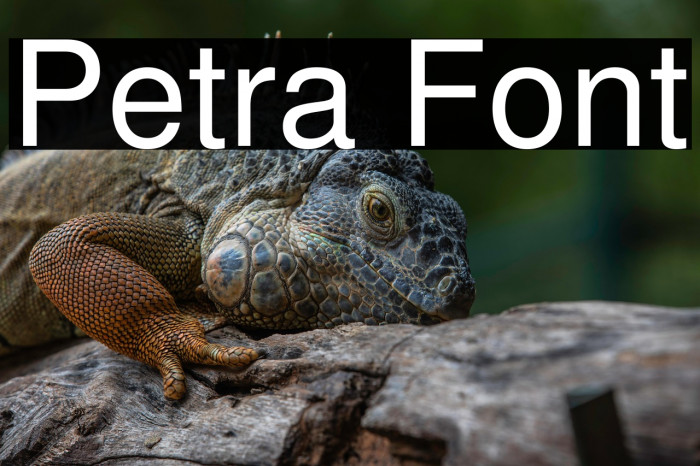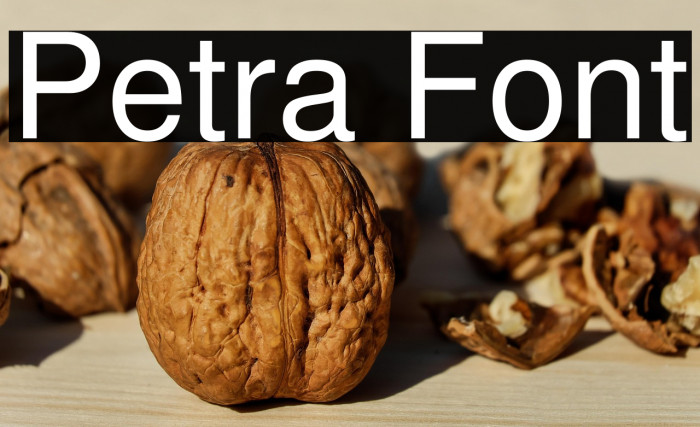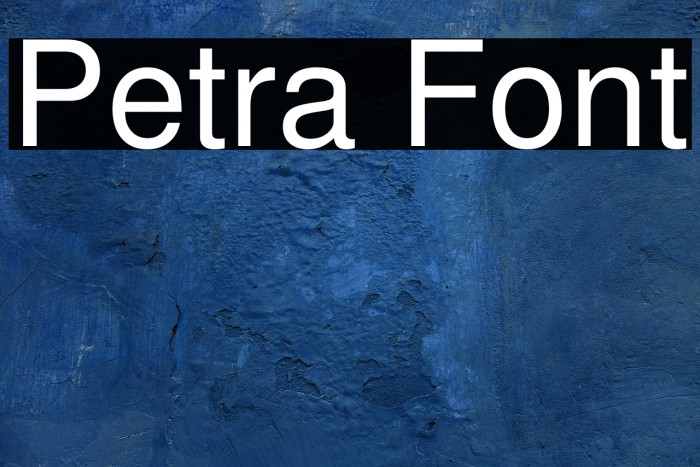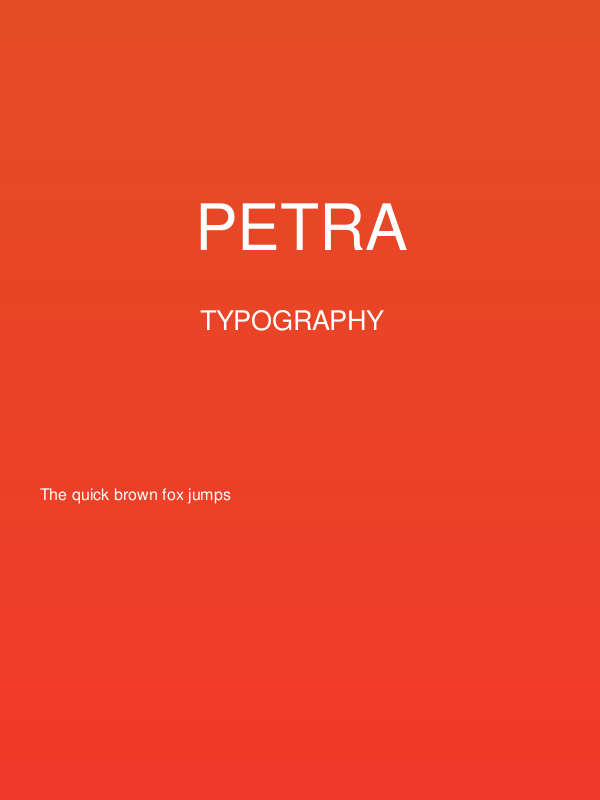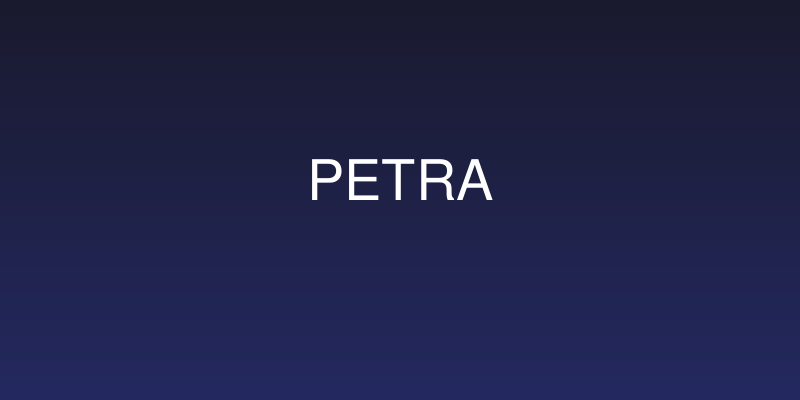
Petra Font
Petra Description
This font exhibits a clean and modern sans-serif style, characterized by its simplicity and clarity. The letterforms are uniform and geometric, providing a sense of balance and professionalism. The uppercase and lowercase letters maintain a consistent height, while the numerals are clear and easily distinguishable. The special characters are well-integrated, maintaining the overall aesthetic of the typeface. This font is versatile, suitable for a wide range of applications due to its readability and straightforward design.